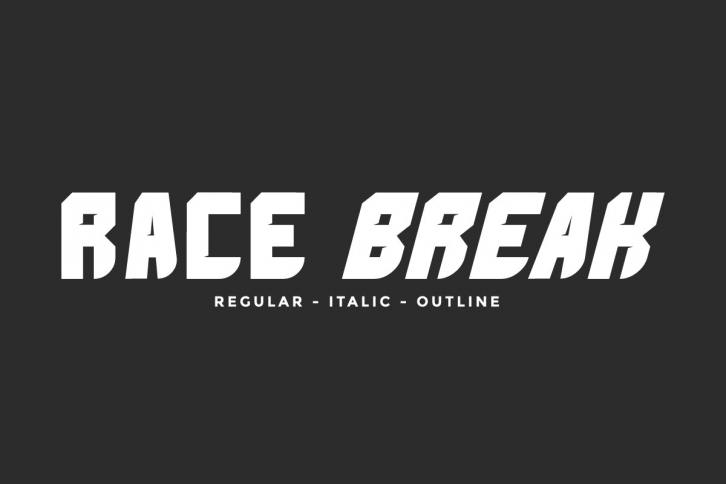
Race Break is a cool, bold and casual display font. It is perfect for any branding project such as logos, t-shirt printing, creative products, or pretty much anything that could benefit from a futuristic vibe.